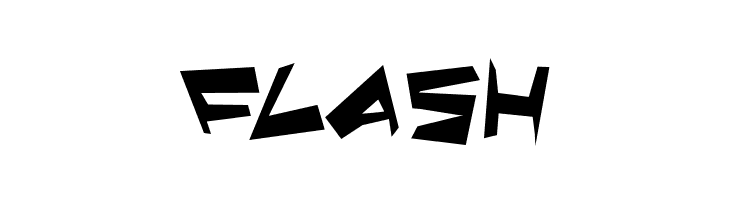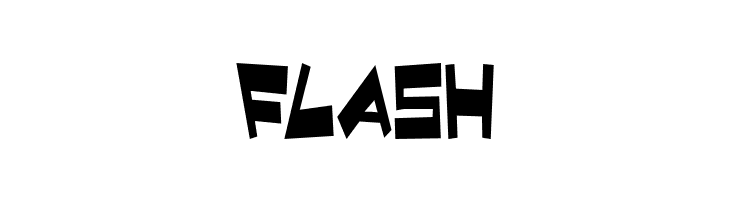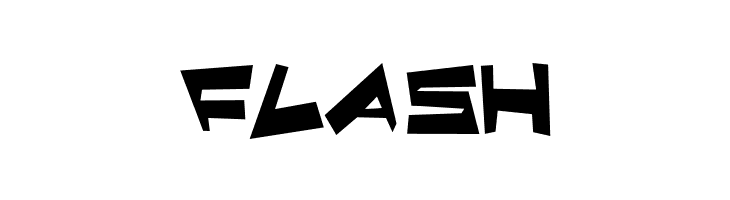
Ambrosia Ligature Font
- Font: Ambrosia Ligature
A bold, angular font with a dynamic, geometric style.
A bold, angular, and geometric font with a condensed width and dynamic style.
A bold, angular font with a dynamic and energetic style.